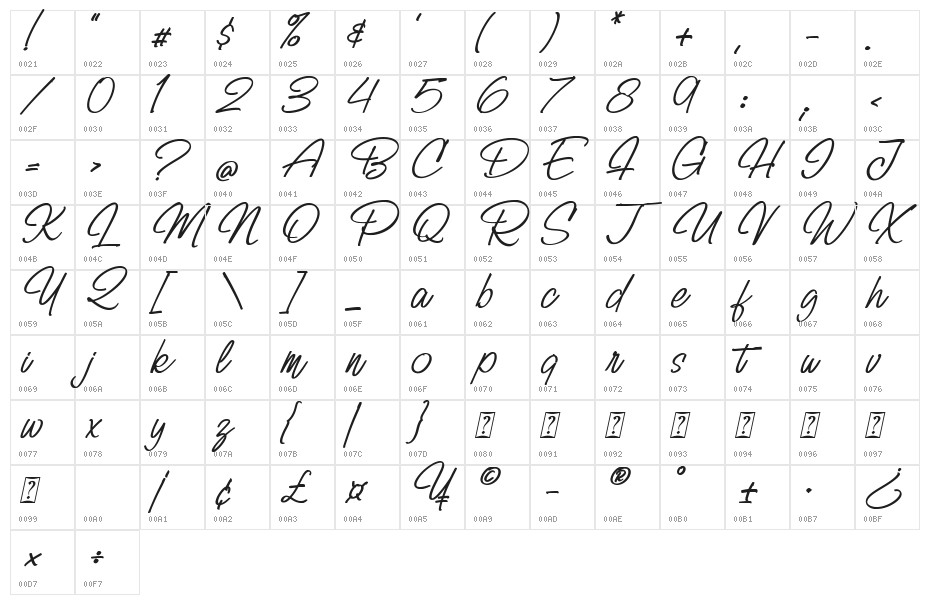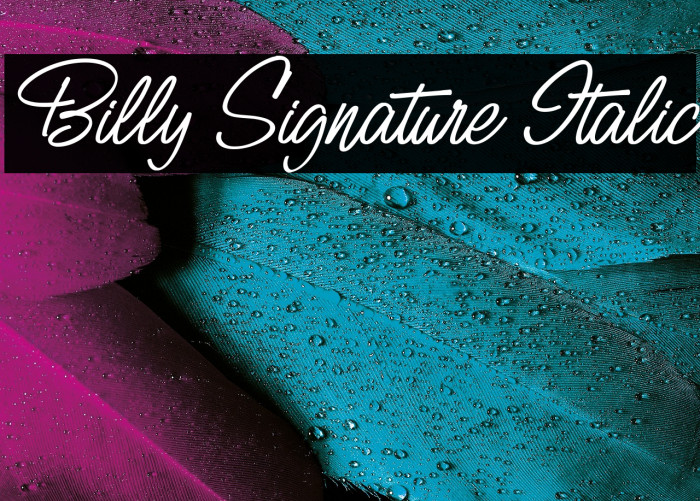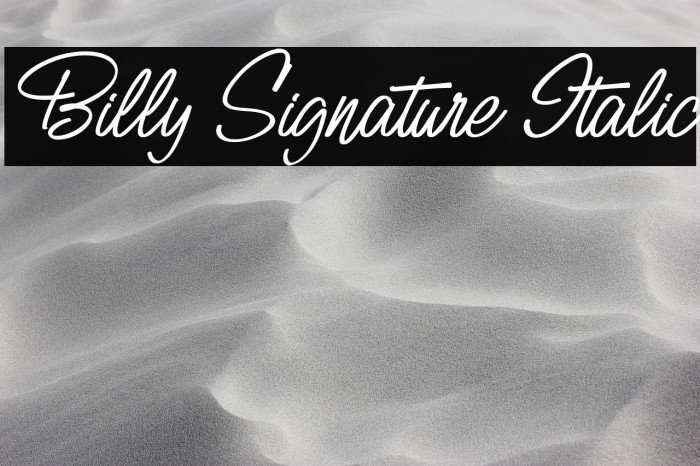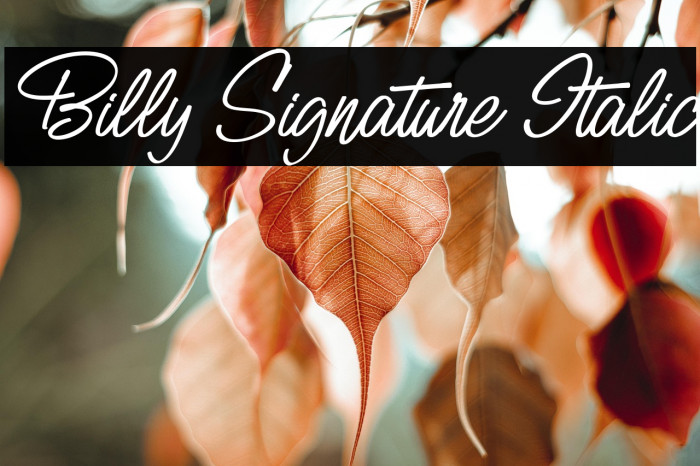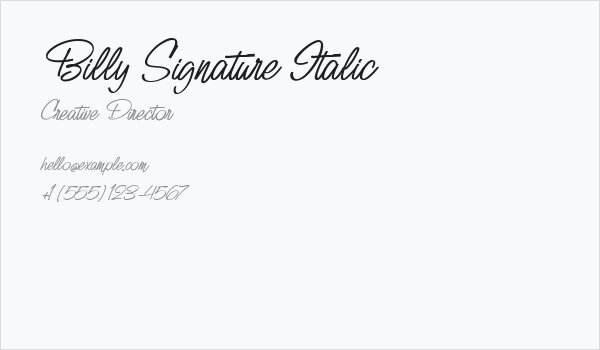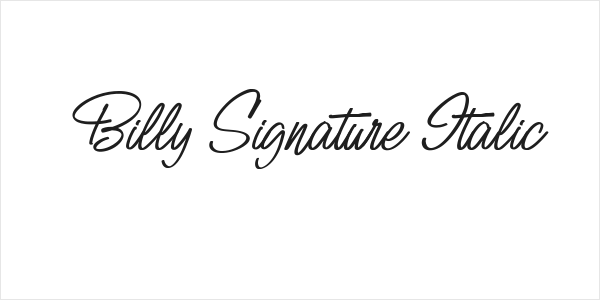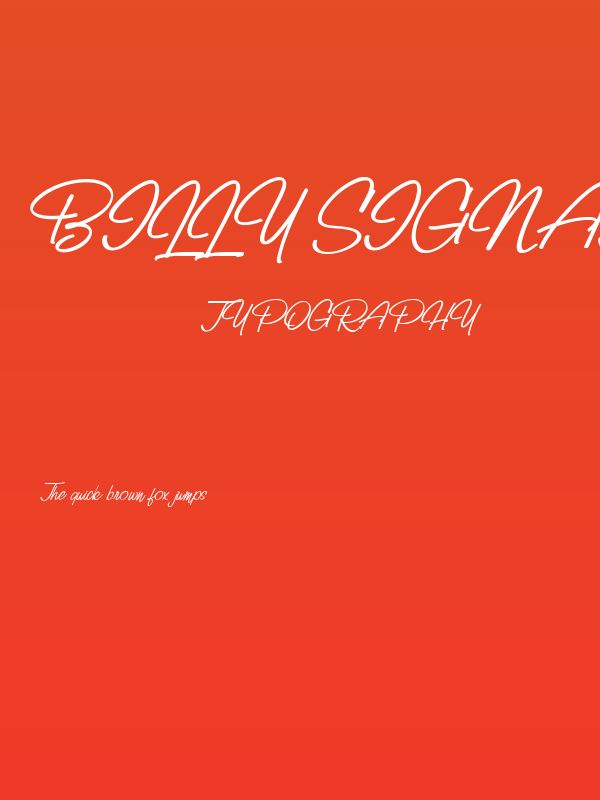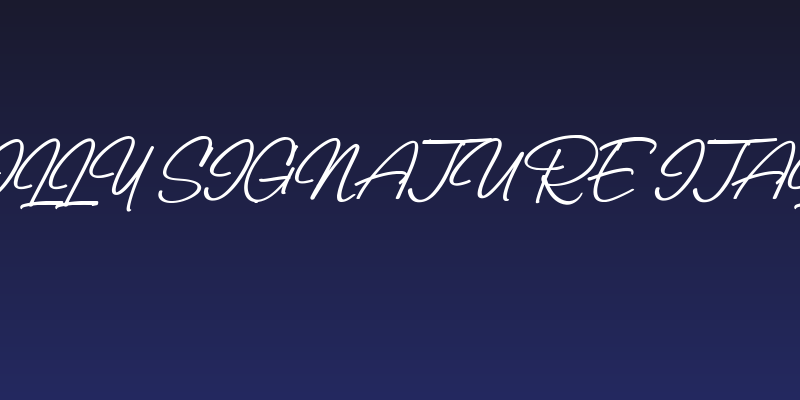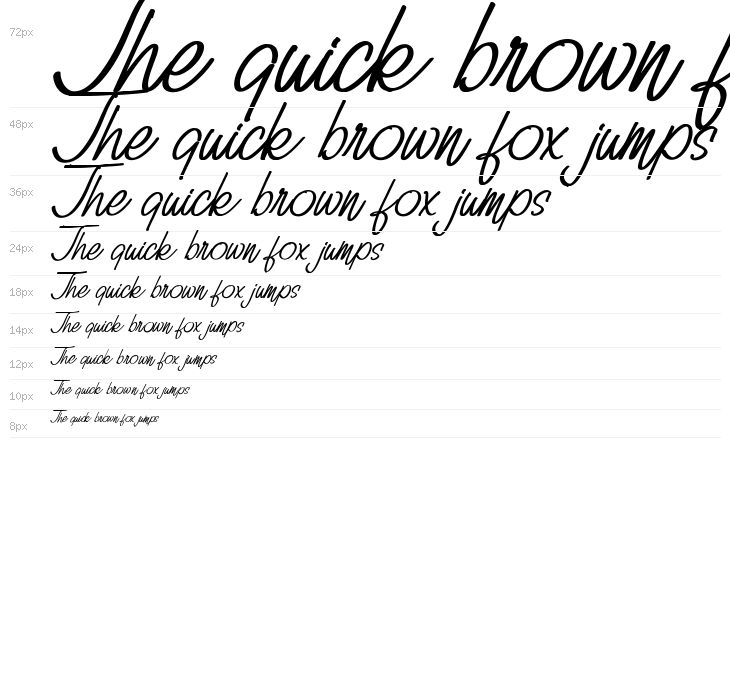
Billy Signature Italic Font
Billy Signature Italic Description
This font features a flowing, cursive style that emulates the elegance of a handwritten signature. The letters are connected with smooth, sweeping strokes, giving it a dynamic and fluid appearance. The uppercase letters are slightly more ornate, with extended flourishes, while the lowercase letters maintain a consistent slant and rhythm. The numerals and special characters are designed to complement the alphabet, maintaining the same cursive style. This font exudes sophistication and personal touch, making it ideal for projects that require a personal or elegant feel.